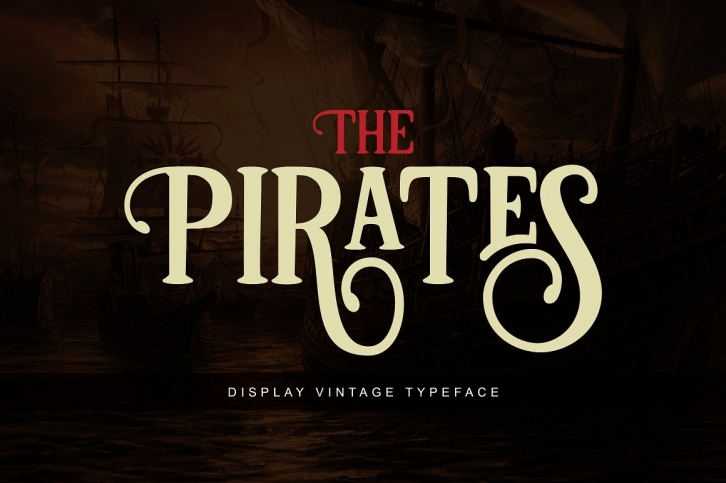
Pirates is a beautiful font that was designed by Unicode Studio. It's a great choice for designers and creatives who need such a font. It was released on October 13, 2017 and the file size is 15.62 MB. Pirates may give a more youthful, expressive and casual look to your project. It is a very beautiful, refined, elegant, and high-quality font.